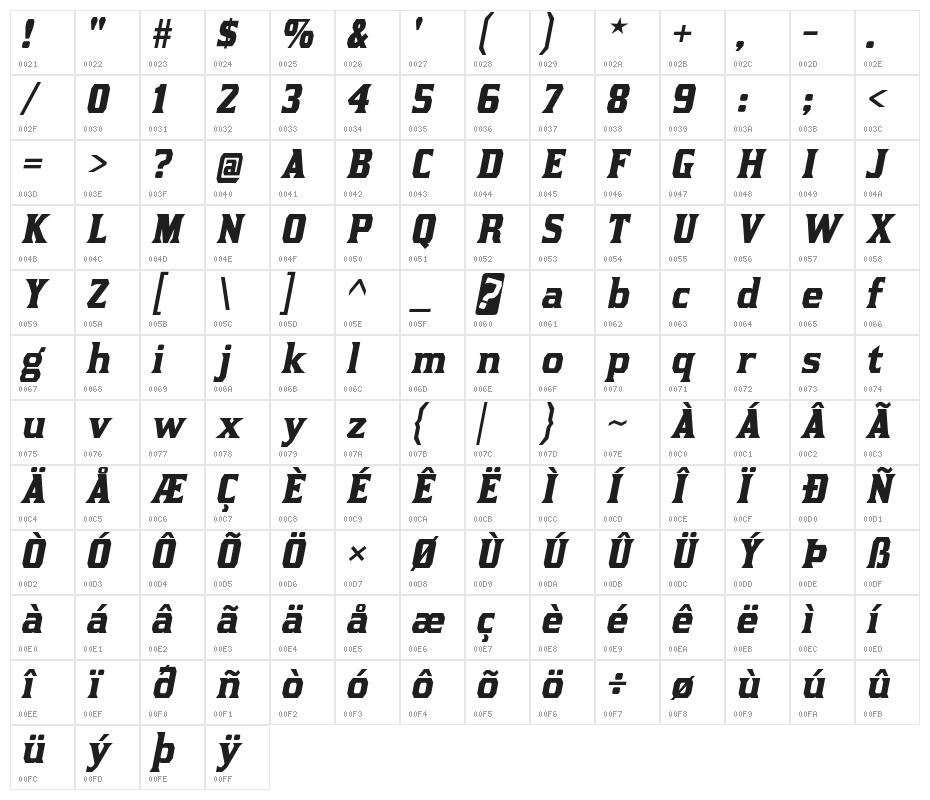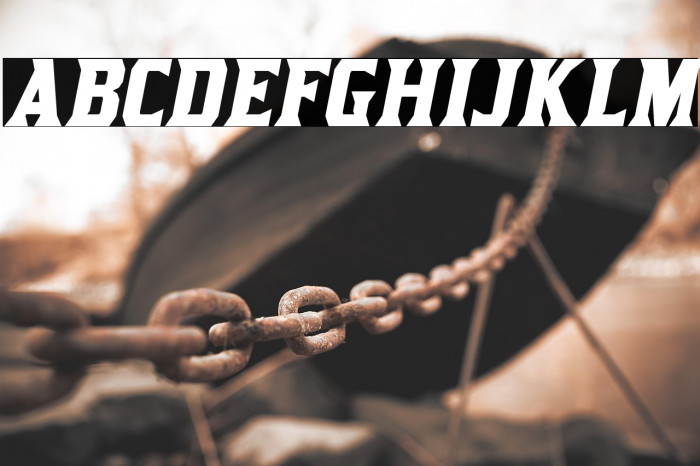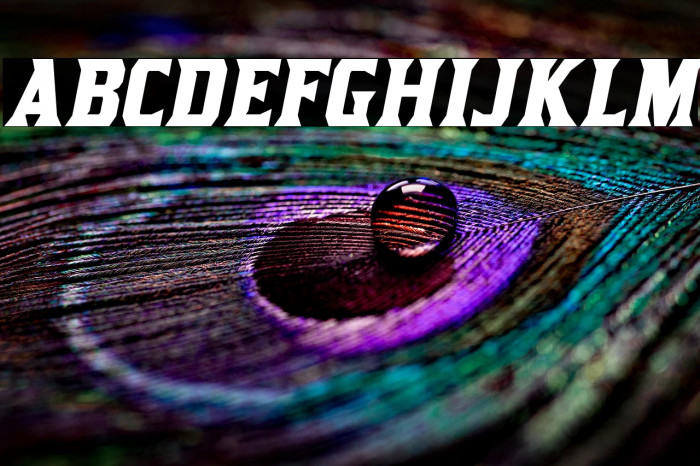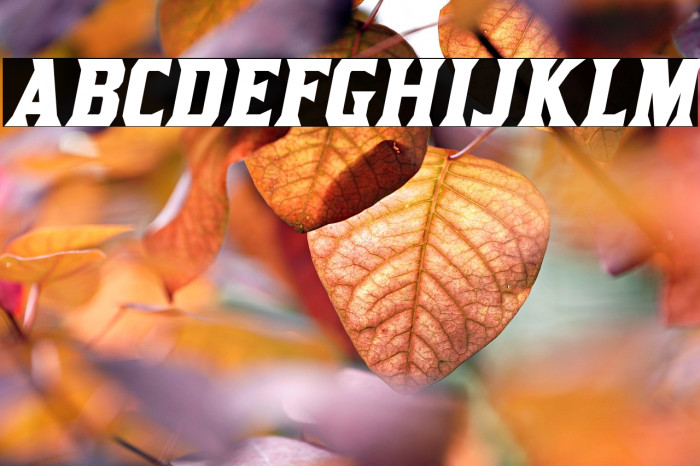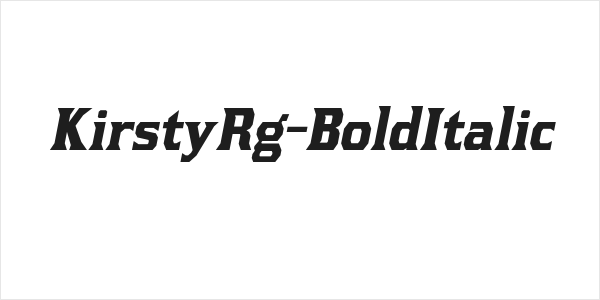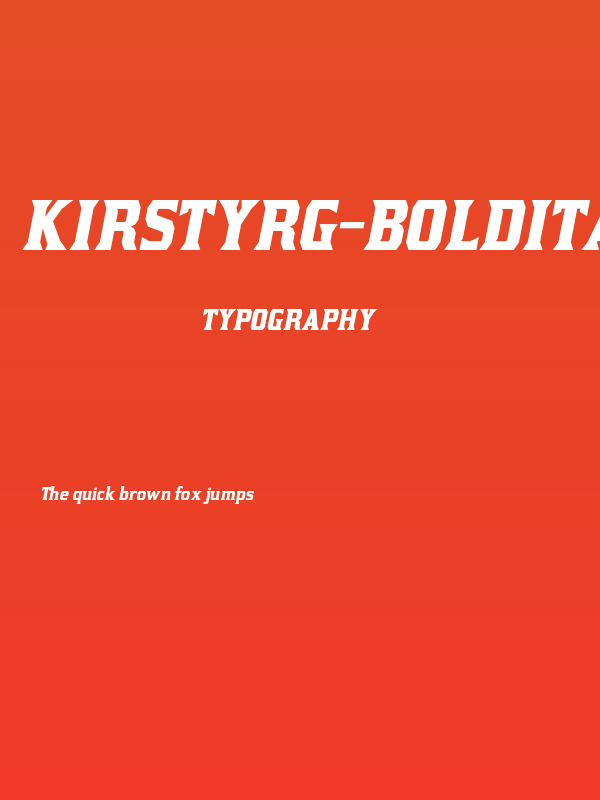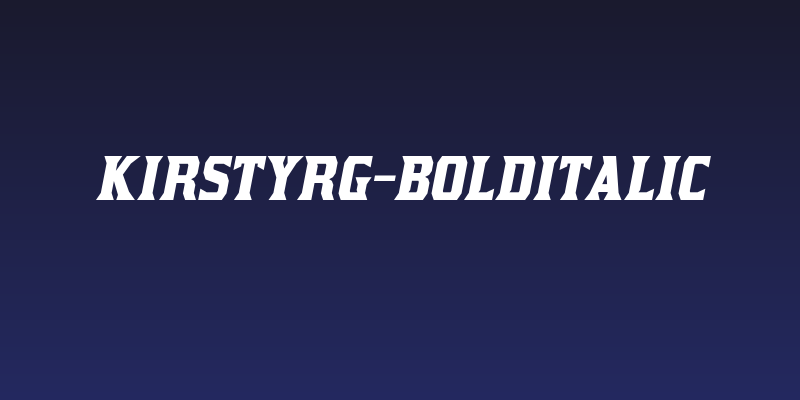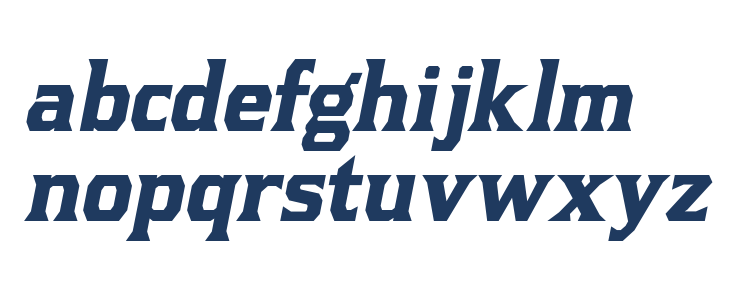
KirstyRg-BoldItalic Font
KirstyRg-BoldItalic Description
This font exhibits a bold and italicized style with a strong, dynamic presence. The characters are sharply angled, giving a sense of movement and energy. The uppercase letters are particularly striking, with a wide stance and pronounced serifs that add to the font's boldness. The lowercase letters maintain the same angular style, ensuring consistency throughout. Numbers and special characters are equally bold, making them stand out effectively. This font's unique style is suitable for projects that require a strong visual impact.
| Proposed Projects | Ideal for sports branding, action movie posters, and dynamic advertising campaigns. |